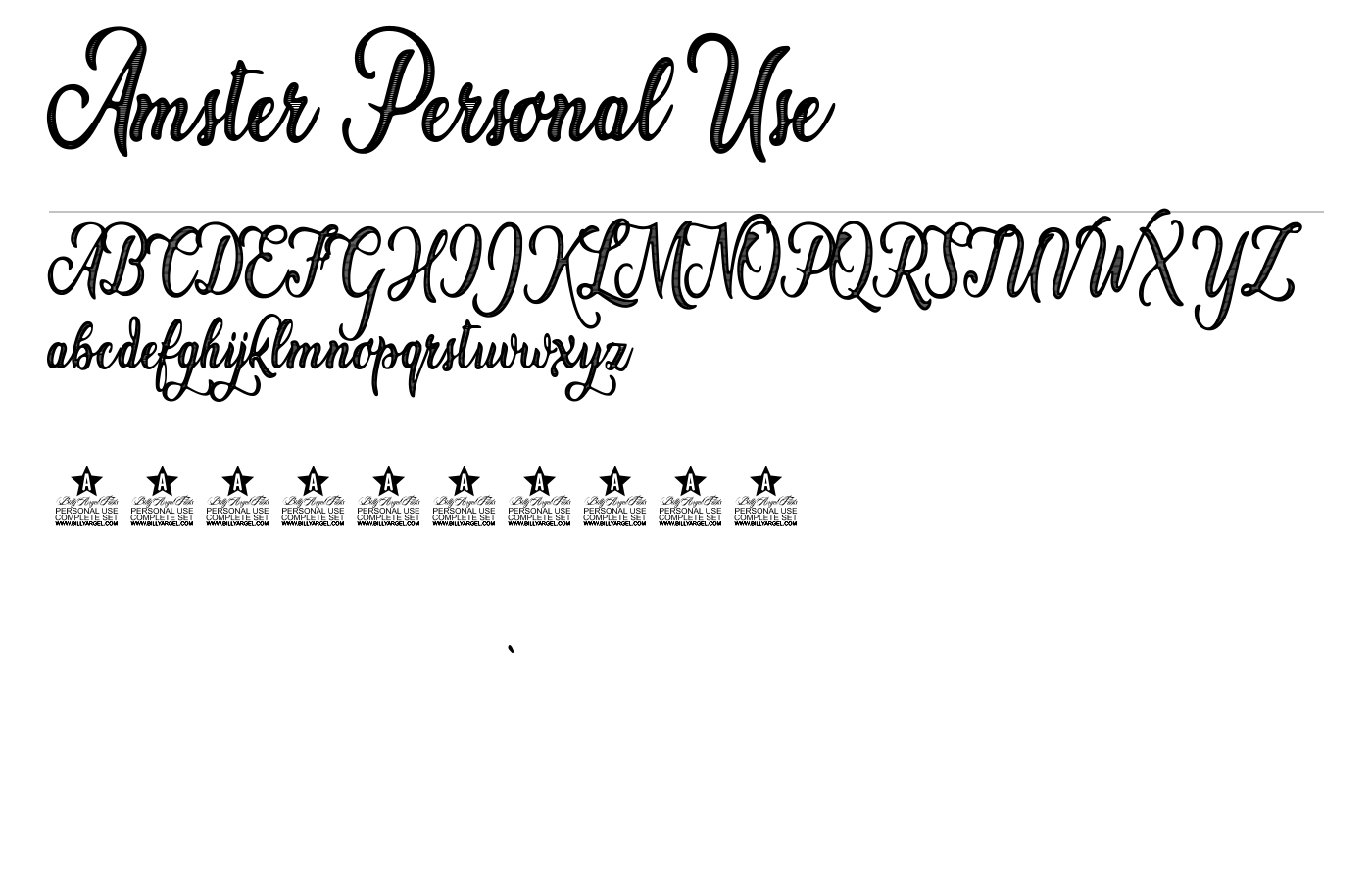
Amster Personal Use is a charming script font with elegant, flowing letterforms that evoke a handcrafted, vintage feel. Its smooth, connected strokes and moderate contrast create a graceful and personalized look, making it ideal for invitations, logos, and branding that seek a warm, artistic touch. This font works beautifully in decorative or display contexts where a stylish and sophisticated script enhances the design.
Amster Personal Use Font
About Amster Personal Use Font
| Font family | Amster Personal Use Font |